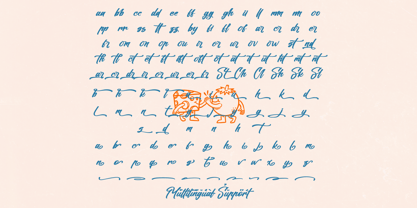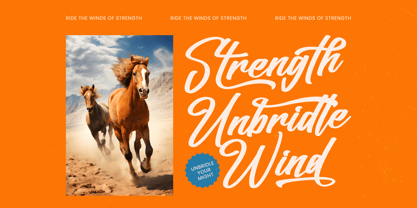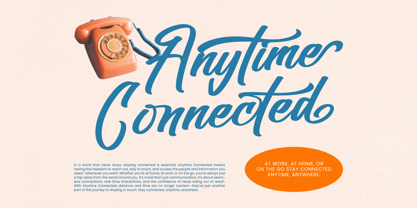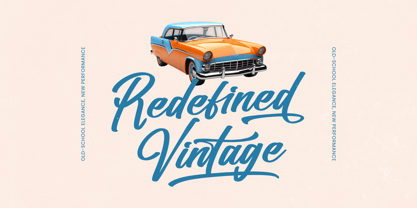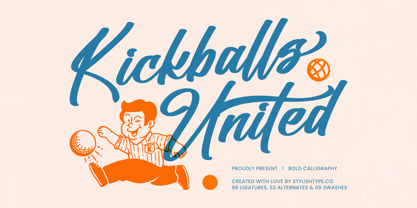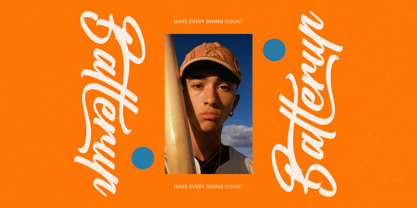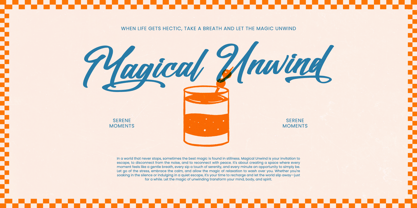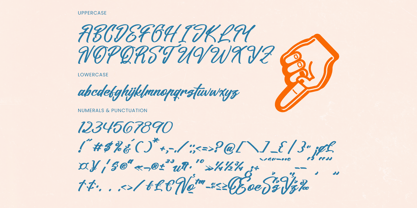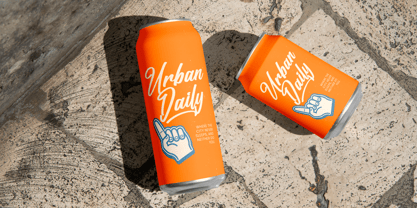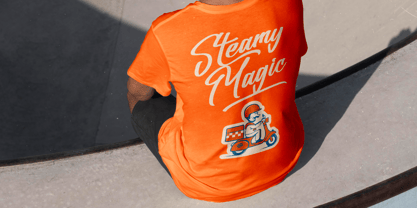
Kickballs United
par Stylishtype Studio
La famille de polices Kickballs United a été conçue par Heru Utama Putra et publiée par Stylishtype Studio. Kickballs United contient 2 styles et options de package familial. En savoir plus sur cette famille
Kickballs United is a bold calligraphy script that blends energetic strokes with vintage sports charm, making it perfect for dynamic logos, team merchandise, retro branding, playful posters, apparel prints, and nostalgic illustration-based projects. Designed with 66 ligatures, 52 alternates, and 9 expressive swashes, this typeface delivers fluid motion and handcrafted character, giving your designs personality and movement. Its strong curves, athletic spirit, and friendly retro appeal make Kickballs United a standout choice for designers seeking a stylish script that combines confidence, fun, and handcrafted authenticity in one versatile font.